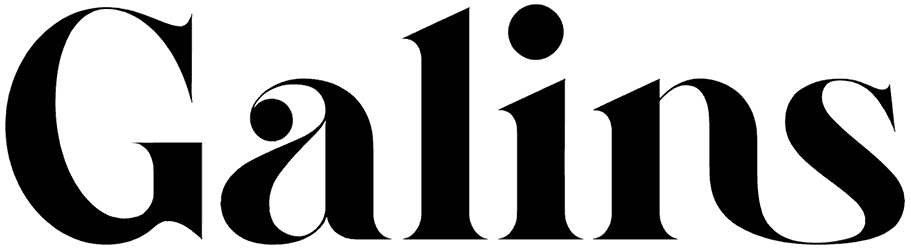
Galins Font
With a classic and matchable letterform, you can trim any official or unofficial design. As a serif font, Galins, with its unique and chic lettering, can be one of the best items to do this. No punctuation to offer, but Galins would act well to show off your novel projects, for instance, branding, posters, ads, fashion designs, or the like.